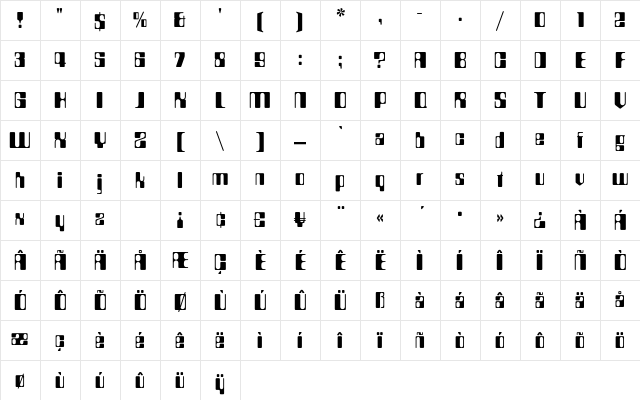
CountdownEF Regular Free Font
CountdownEF Regular
Design Context for CountdownEF
CountdownEF is a composed and adaptable typeface that performs quietly and consistently across a wide range of design contexts.